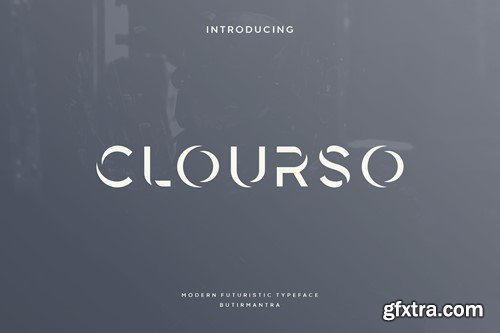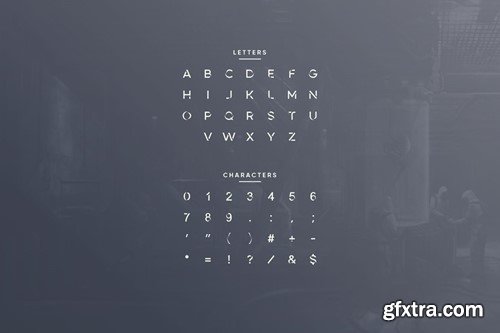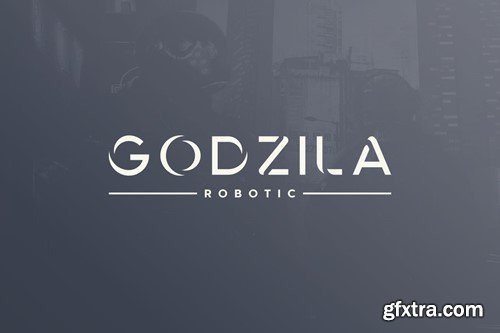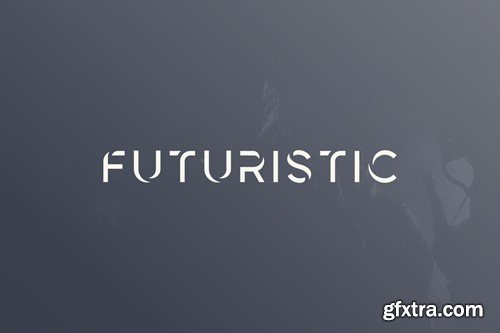
Clourso - Futuristic Font
Clourso is a luxury font come in all caps that will make your designs look both futuristic and modern, using a simple design for a clean and elegant look. You can use this font for any purpose, especially for creating future designs. This font is great for logo designs, poster, magazine, headline and many other designs, it is a very sophisticated font so that will make your designs stand out! File Included : Thanks for subscribe and good luck with your project!